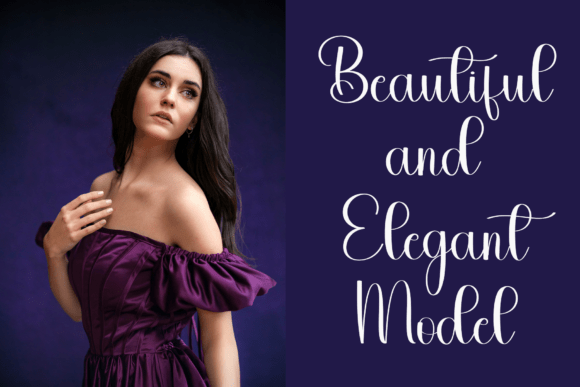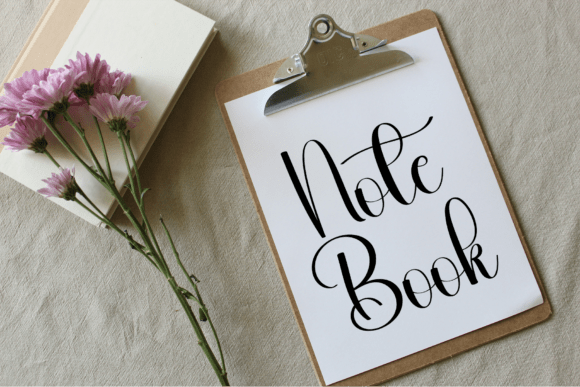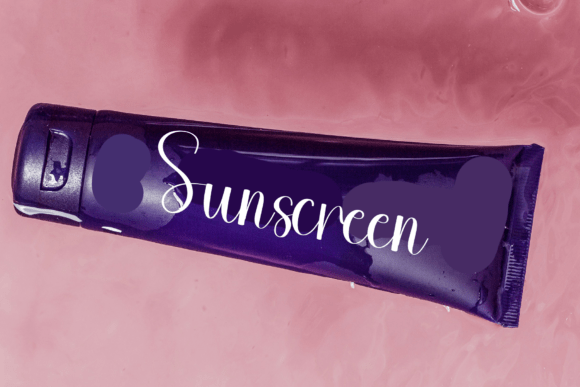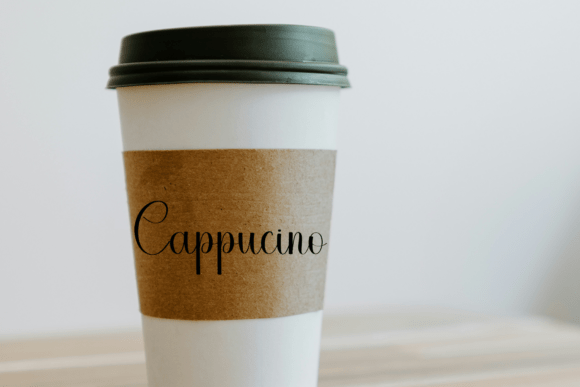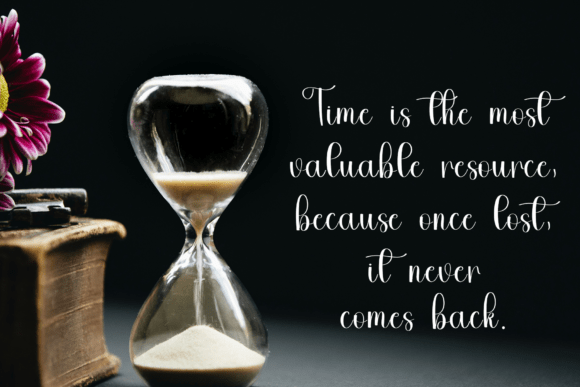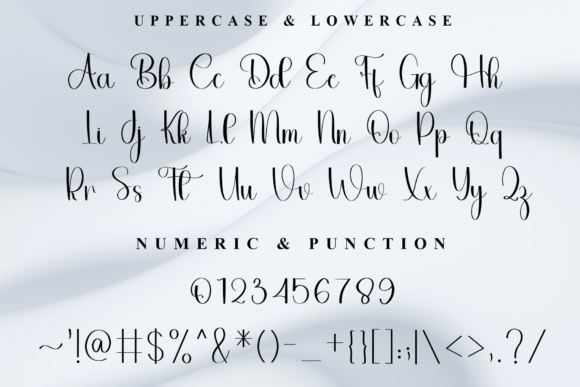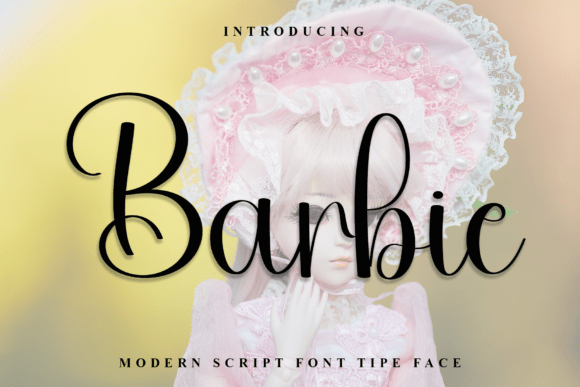
Introducing Barbie Font: The Ultimate Holiday Typeface
The holiday season is upon us, and what better way to get into the spirit than with a festive and merry typeface? Look no further than Barbie Font, a decorative and whimsical font that’s perfect for adding a touch of enchantment to your designs. Whether you’re a designer, crafter, or simply someone who loves the magic of the holiday season, Barbie Font is sure to delight.
Barbie Font is a beautifully crafted typeface that’s designed to capture the spirit of the holiday season. With its decorative elements and whimsical flair, it’s the perfect addition to any holiday-themed project. From greeting cards and gift tags to festive banners and decorations, Barbie Font brings a cheerful and nostalgic ambiance to your words.
As a designer or crafter, you’re always on the lookout for unique and versatile fonts to add to your collection. Barbie Font is a fantastic addition to any design library, offering a wide range of uses and applications. Whether you’re creating custom holiday cards, crafting festive decorations, or designing social media graphics, Barbie Font is the perfect choice.
What You Can Create with Barbie Font
The possibilities are endless when it comes to creating with Barbie Font. Here are just a few ideas to get you started:
- Greeting cards: Create custom holiday cards for friends and family, complete with festive graphics and typography.
- Gift tags: Add a personal touch to your gifts with custom gift tags featuring Barbie Font.
- Holiday decorations: Design festive banners, garlands, and other decorations to get your home holiday-ready.
- Social media graphics: Create eye-catching social media graphics featuring Barbie Font to spread holiday cheer online.
Why Choose Barbie Font?
So why choose Barbie Font over other holiday typefaces? Here are just a few reasons:
- Unique and festive design: Barbie Font is a one-of-a-kind typeface that’s sure to stand out in any design.
- Versatile: From greeting cards to social media graphics, Barbie Font can be used for a wide range of projects.
- Nostalgic ambiance: Barbie Font brings a cheerful and nostalgic ambiance to your words, perfect for the holiday season.
If you’re looking for a festive and merry typeface to add to your design library, look no further than Barbie Font. With its decorative elements, whimsical flair, and PUA encoding, it’s the perfect choice for designers and crafters alike. Whether you’re creating holiday cards, gift tags, or social media graphics, Barbie Font is sure to bring a touch of enchantment to your designs. So why wait? Get creative with Barbie Font today and make your holiday designs shine!